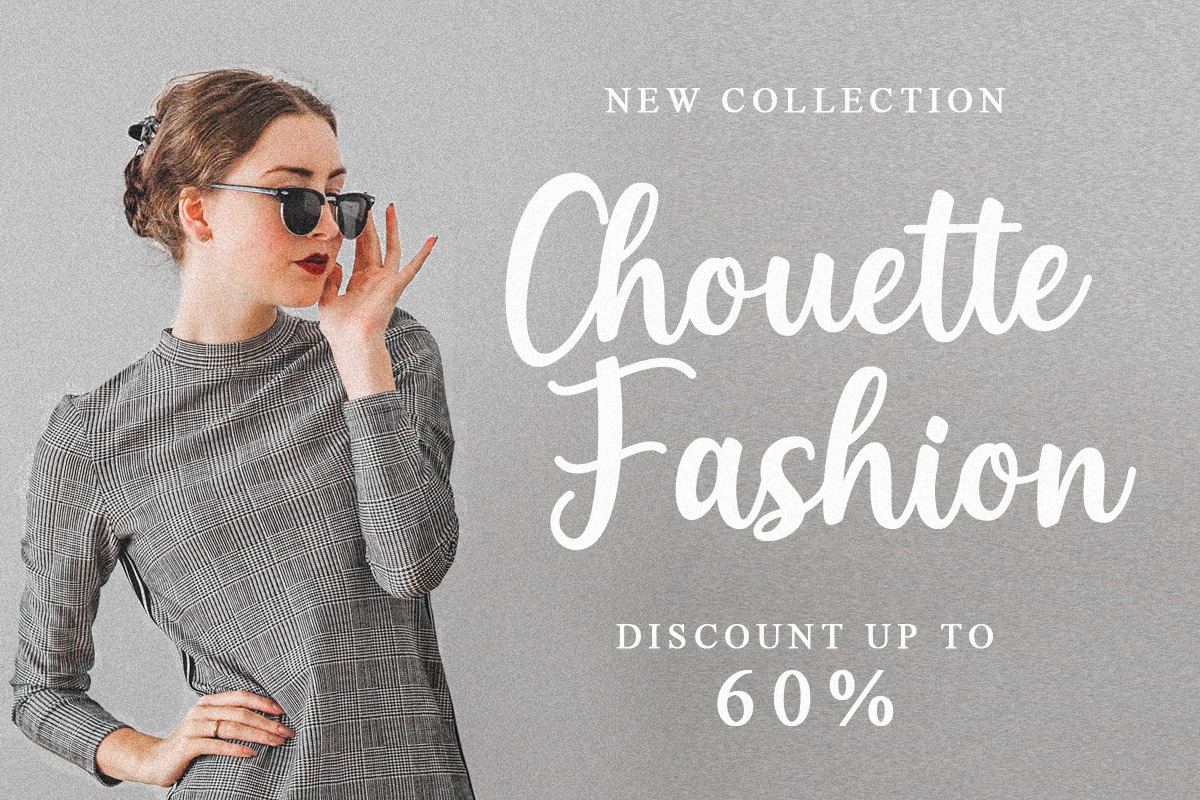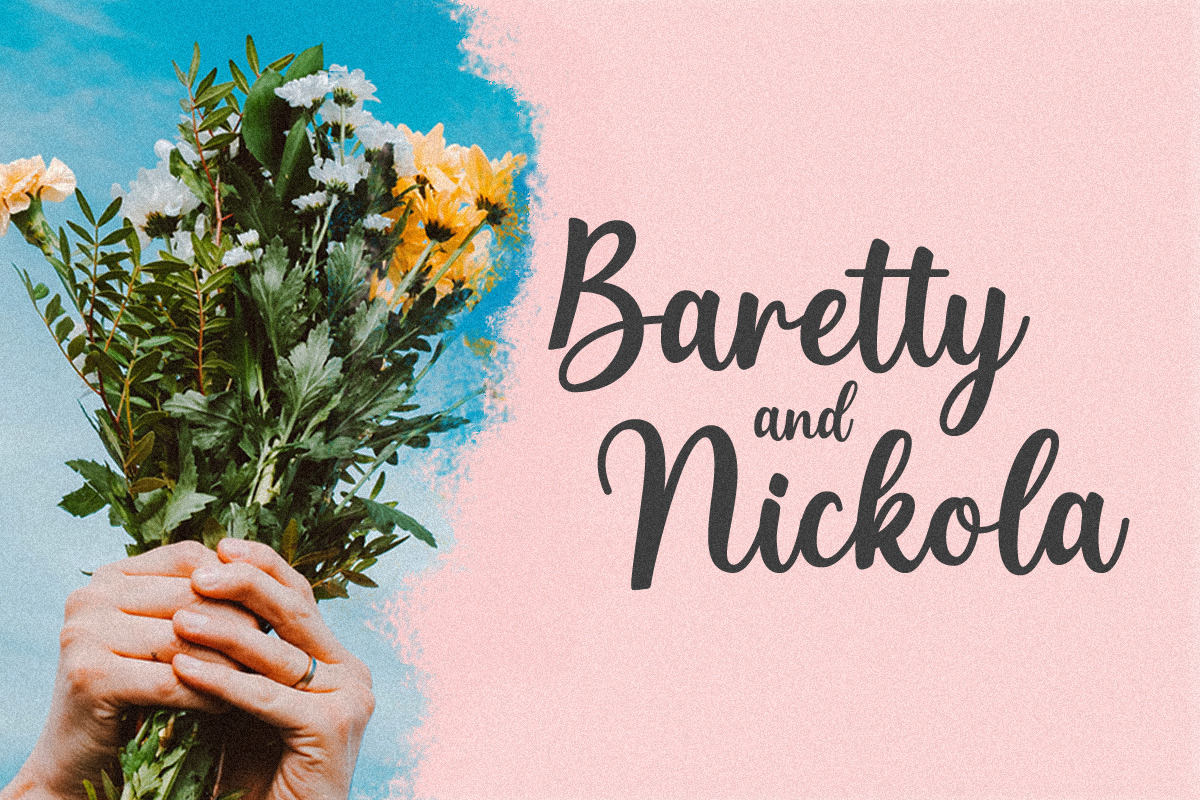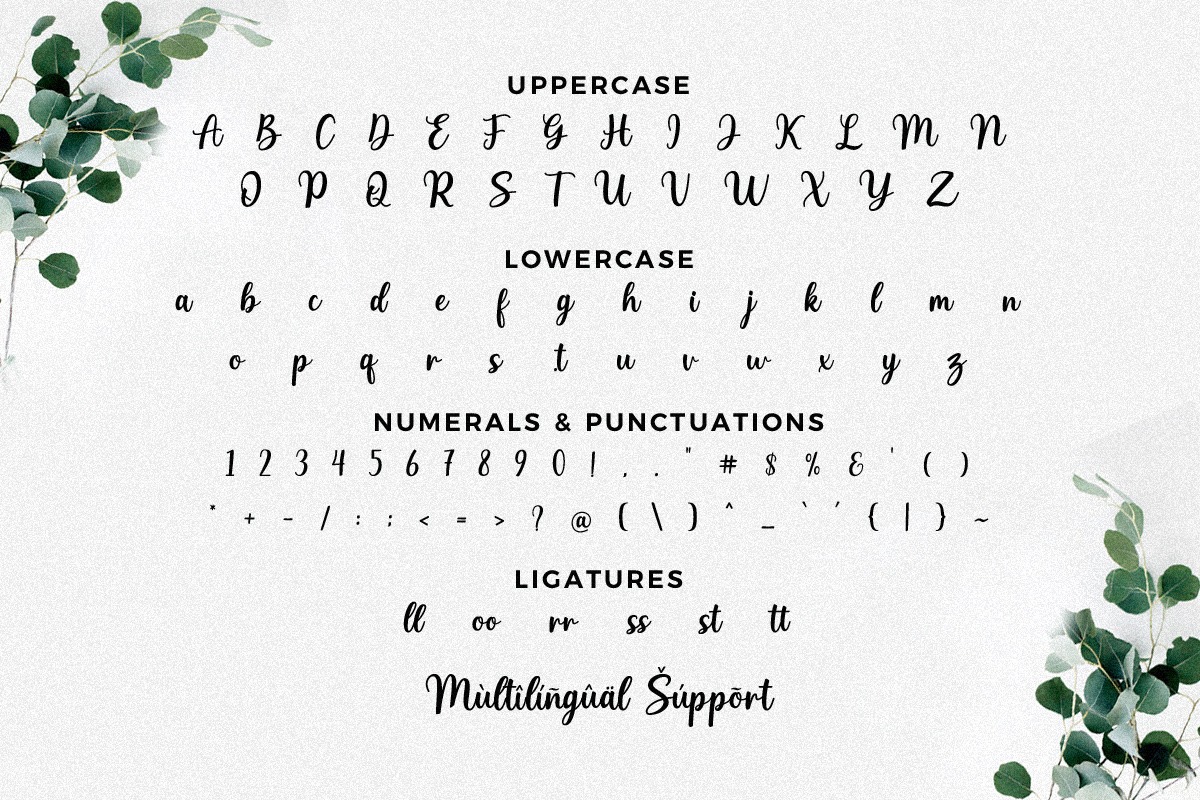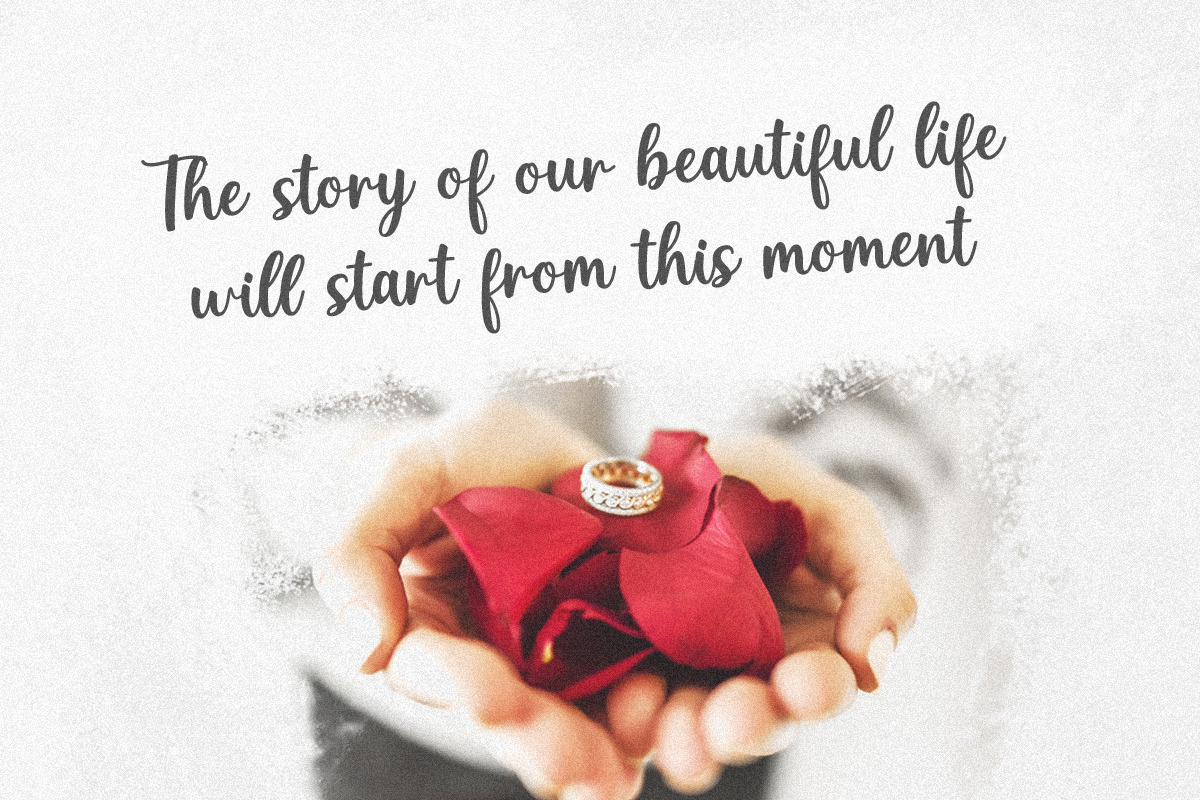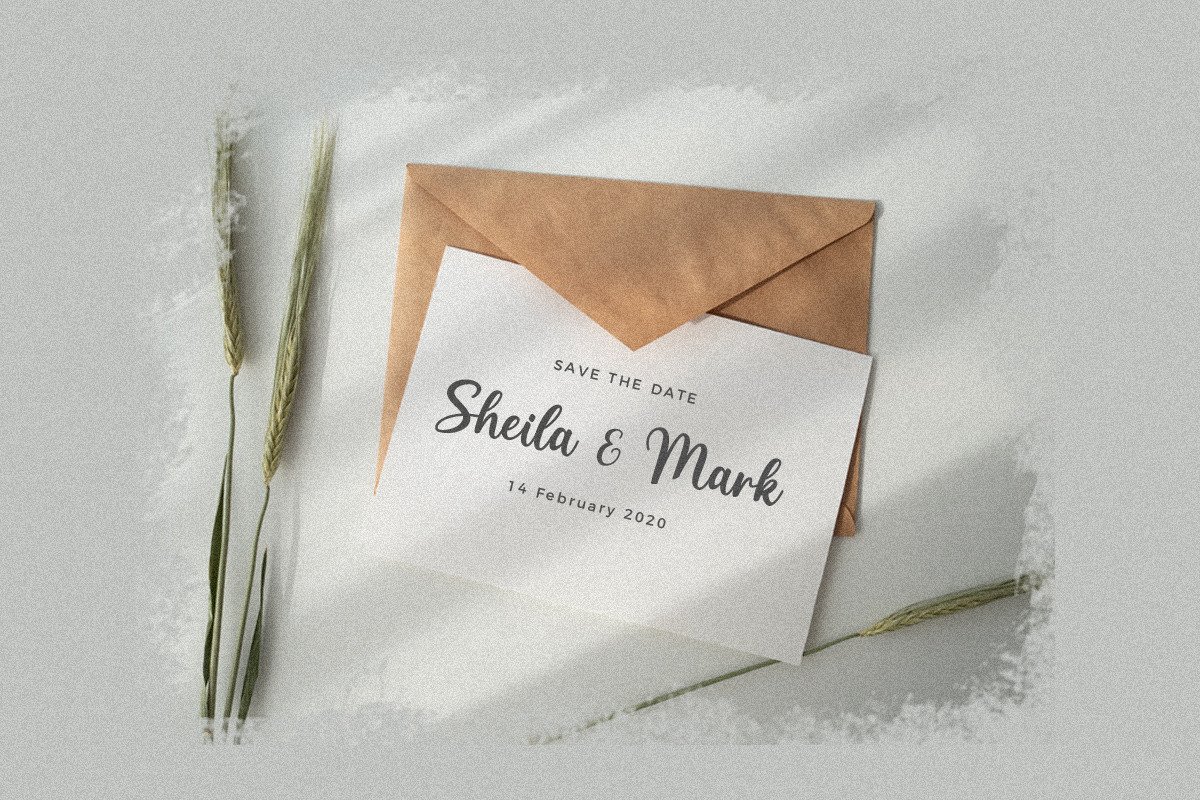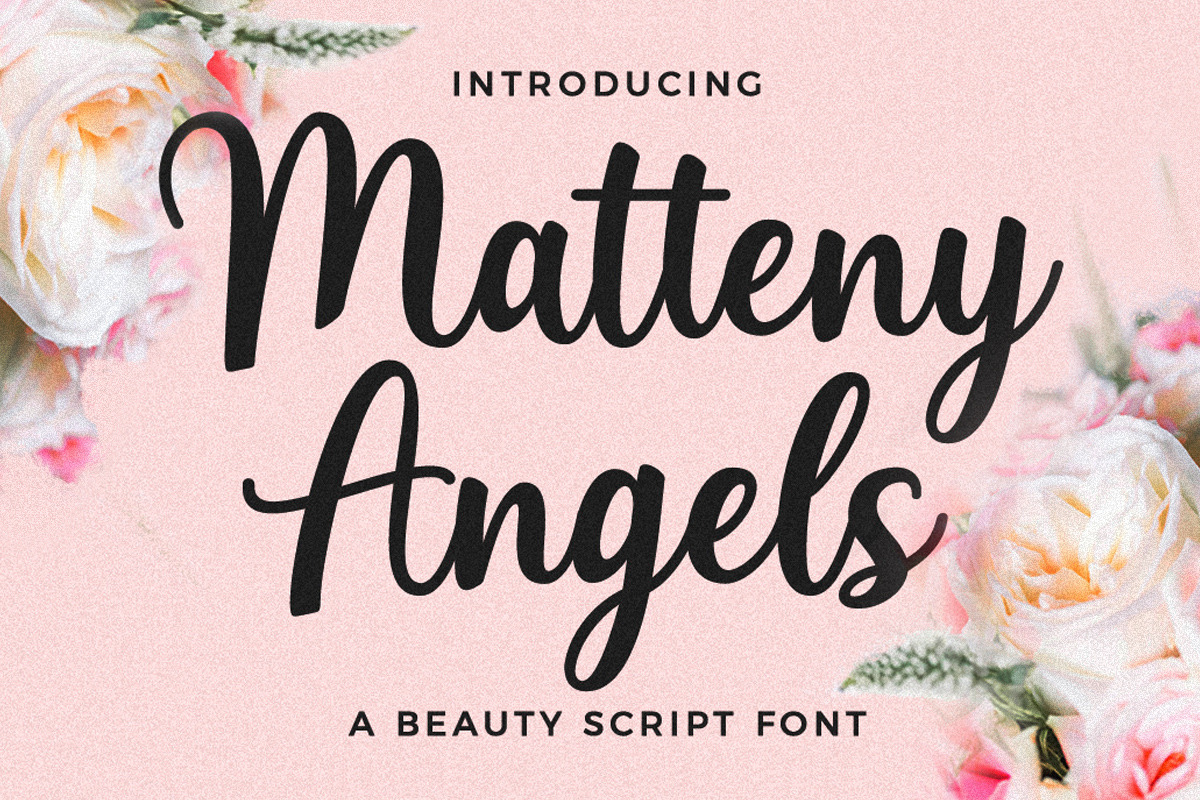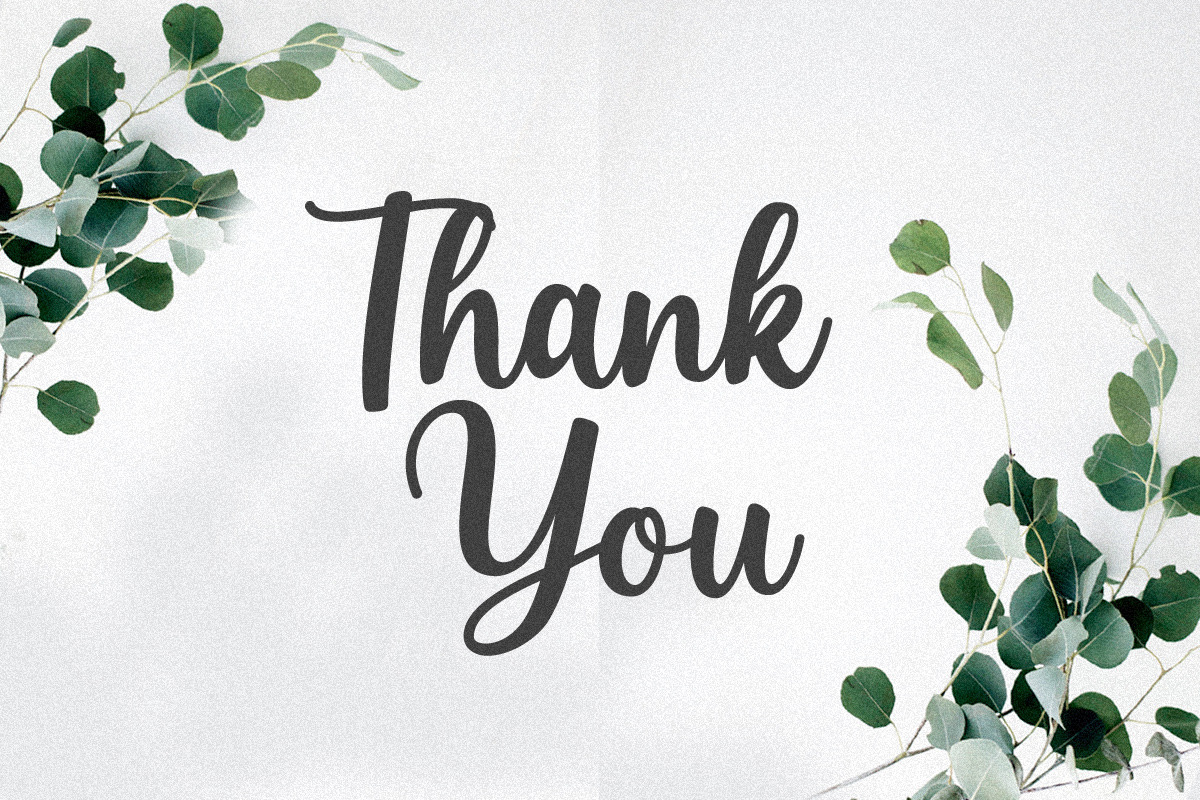
Matteny Angels Script Font
Matteny Angels is a beautiful and flowing script font. It looks stunning on wedding invitations, branding, thank you cards, watermark, fashion, quotes, greeting cards, logos, business cards and every other design which needs a handwritten touch.
- Numbers & Symbols